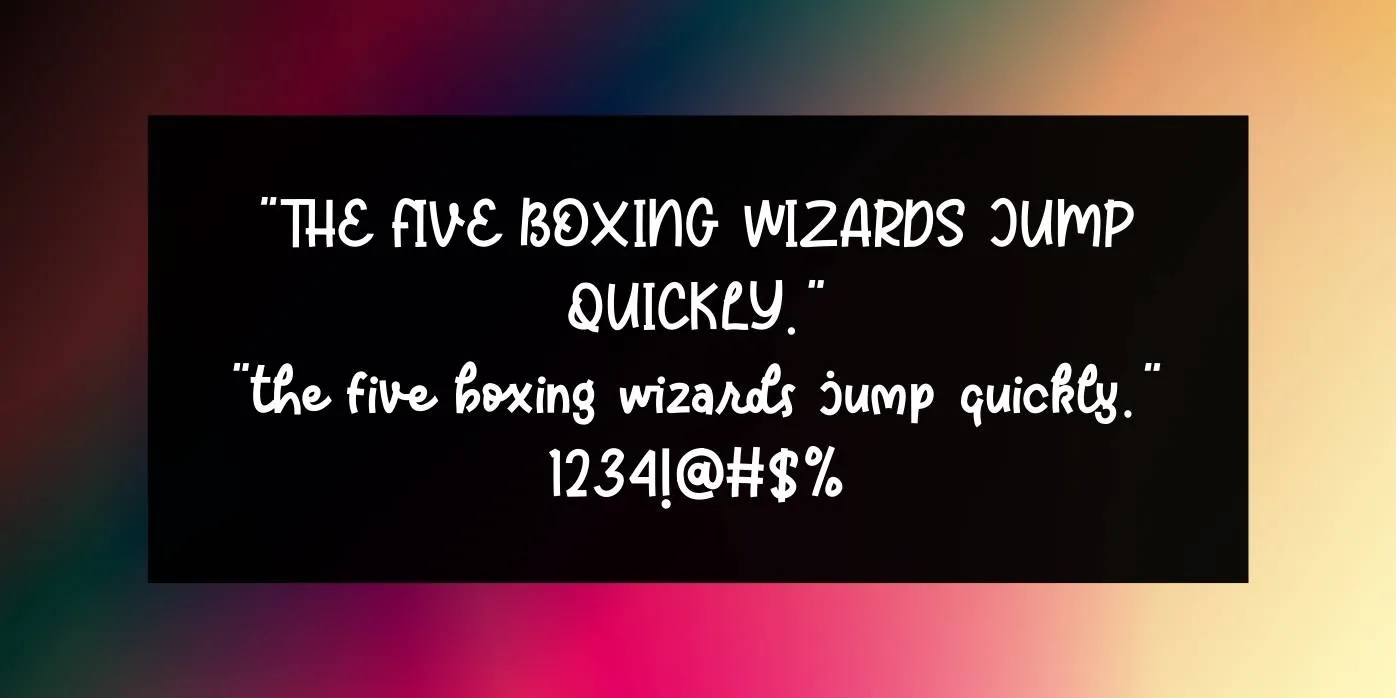
Reds Aglonem Font
Reds Aglonem Font is a unique script font created by designer Ryoichi Tsunekawa. The font was inspired by the traditional Japanese woodblock printing style, as well as by the work of American artist Mark Rothko. This Font is characterized by its strong vertical lines and bold colors. This font style is also compatible with both Windows and Mac devices.